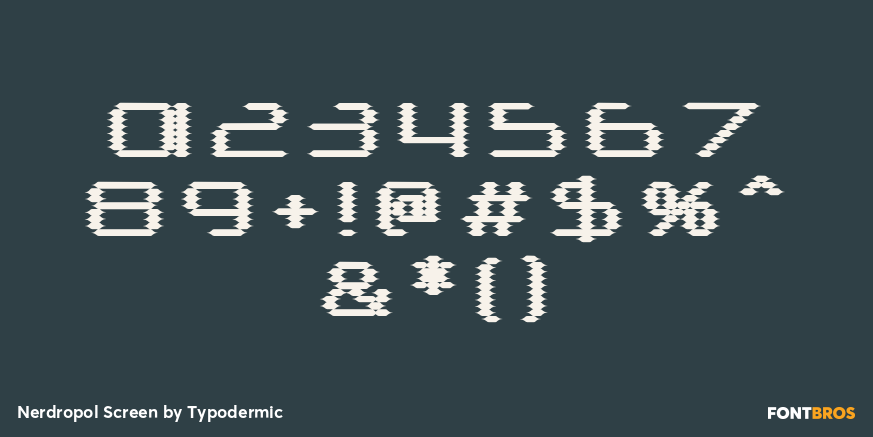
Nerdropol Screen
Buy NowNerdropol Screen replaces isolated pixels with stacked, tapered lozenges that knit into ribbed strokes. Horizontal elements stretch into bars, vertical elements form scalloped columns, and intersections produce small diamond-shaped openings. The resulting surface feels printed, woven, and electronically distorted at once, making it far more textural than the family’s dot and square constructions.
Use Nerdropol Screen for screen-printed posters, broadcast transitions, electronic-music covers, apparel graphics, virtual-production backdrops, and deliberate overprint effects. Keep it to very large, short wording where its pointed edges and internal gaps can stay visible. Regular or Grid can carry secondary headings when Screen’s dense pattern would overpower the rest of the layout.